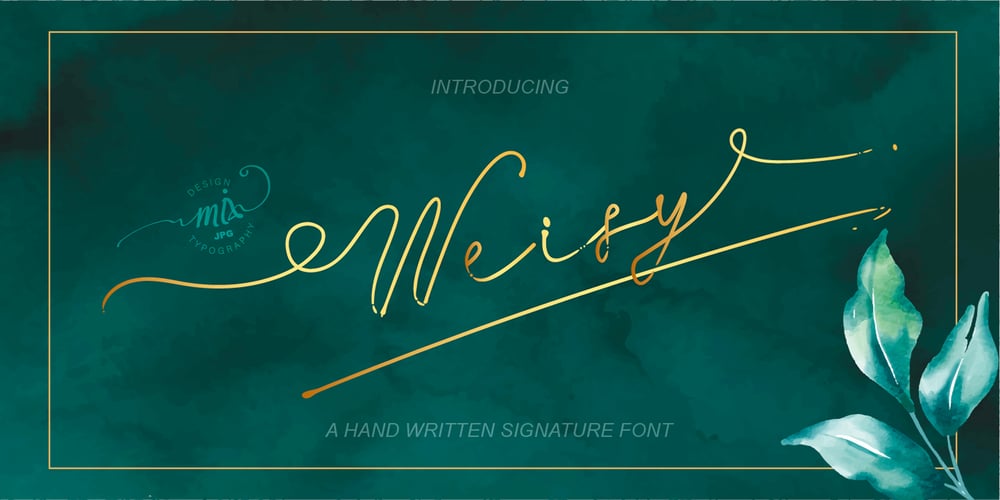
Weisy Font Family was designed by Mix Jpg and published by MIX.Jpg. Weisy contains 1 styles and family package options. Weisy Signature is a modern calligraphy font that is light, smooth, modern with original pen strokes. This script includes holes or spaces in strokes, because all handwritten strokes with brushes use the ink flow structure. Suitable for branding, signatures, wedding invitations, and cards.Weisy Signature includes a complete set of upper and lower case letters, numbers, various punctuation marks and binders. All lowercase letters include the beginning and end of swash, giving a realistic handwriting style. All uppercase letters include the beginning of swash, which makes the font look great!If you don’t have the Glyph panel to use swash, don’t worry. You can type -1 instead of swash. For example, if you type -1A, the initial “A” swash appears and the “a” swash ends. If you type-1, the initial “a” swash will appear.PLEASE NOTE: With a Standard License you are NOT permitted to sell digital goods using fonts in editable software such as Templates. Please, contact me for a license extension.Thank you and enjoy MIX.Jpg